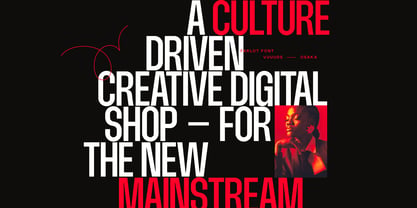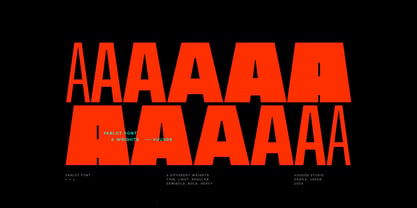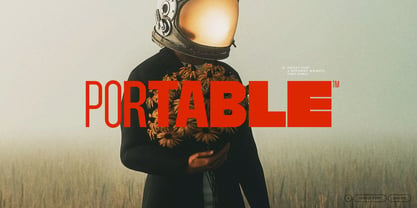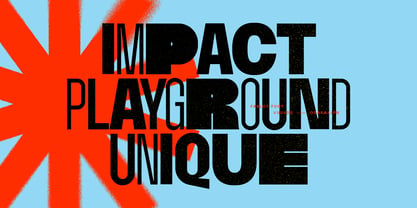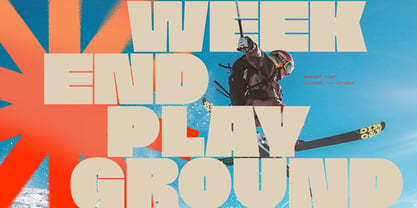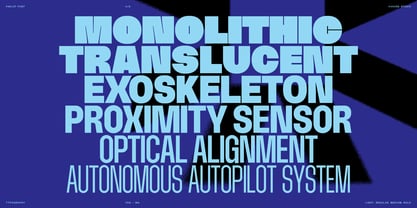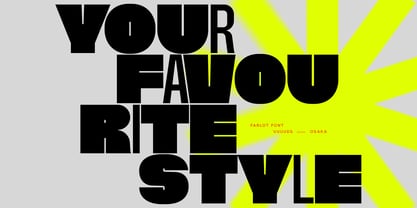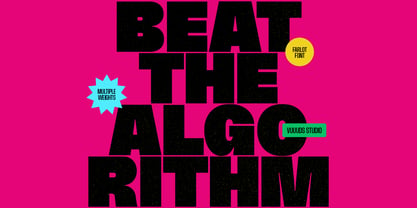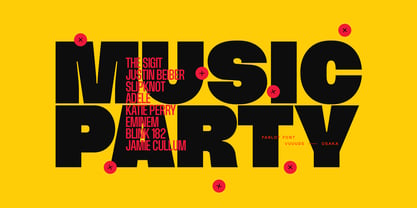
Farlot
by vuuuds
The Farlot Font Family was designed by Agung Syaifudin and published by vuuuds. Farlot contains 6 styles and family package options. More about this family
Farlot is a dynamic, high-impact modern sans-serif font family featuring 6 distinct weights—from a sleek Thin to a commanding Heavy. Engineered with a sharp, precise structure, it is the perfect typographic solution for bold logos, striking headings, modern posters, and high-energy sports graphics. Beyond display use, Farlot’s versatile weight spectrum makes it exceptionally well-suited for streetwear branding, gaming media, automotive design, high-contrast packaging, and commanding social media content.
Designers: Agung Syaifudin
Foundry: vuuuds